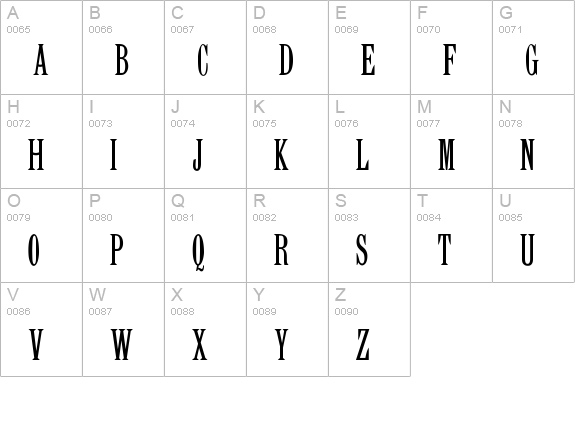
QuantumElongated Font Details
QuantumElongated font is a stunning and sleek typeface that adds a touch of elegance and sophistication to any design project. Its elongated letterforms are meticulously crafted to create a sense of fluidity and grace, making it perfect for headlines, logos, and other display purposes. This font's unique design captures the essence of modernity and innovation, while still maintaining a classic and timeless appeal. Its clean lines and sharp angles give it a contemporary edge, making it the ideal choice for projects that require a bold and impactful statement. One of the best things about QuantumElongated font is that it is available for free download at FontsMarket.com. This means that you can easily access and use this incredible font without any cost or hassle. Whether you're a professional designer or a hobbyist, this free font is a valuable addition to your font library. With QuantumElongated font, you have the freedom to explore your creativity and express your ideas in a visually captivating way. Its versatility allows it to be used in a wide range of design projects, from website headers to product packaging. So why wait? Take advantage of this amazing opportunity to enhance your designs with the sleek and stylish QuantumElongated font, freely available for download at FontsMarket.com. Elevate your typography game and make a lasting impression with this incredible typeface.